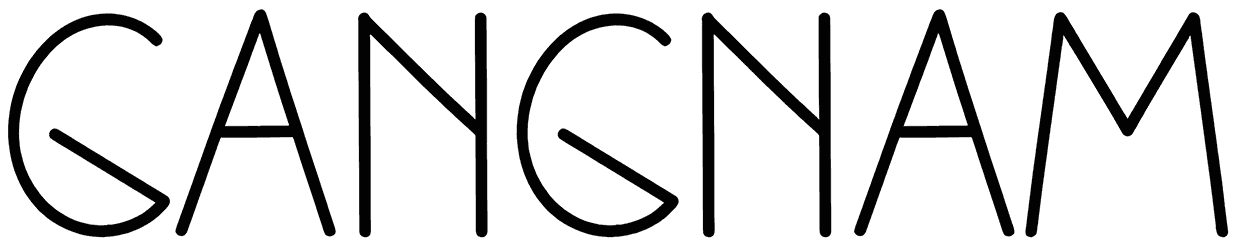
Cakewalk Font
Make sure you’re going to design the best promotional material for a home inspector, a car gallery, or even a DVD rental with the modern touch of Cakewalk, as a sans serif font. Everything may look so simple, but there’s just something so confident about their solid letters.
Cakewalk can show you what it’s like to get right to the point with such a neat font and let the readers figure out the message of your text easier than ever.
Designed by: UI Creative